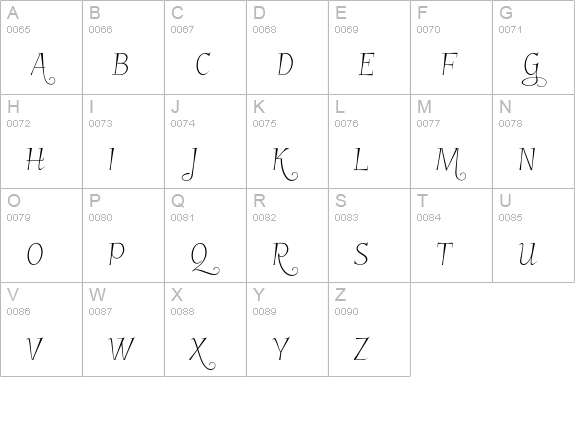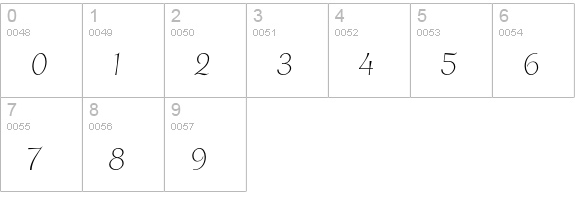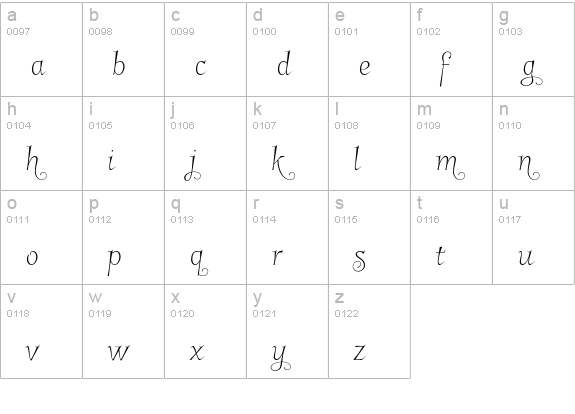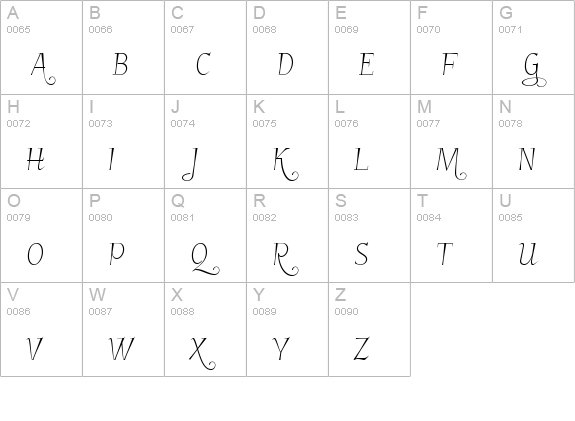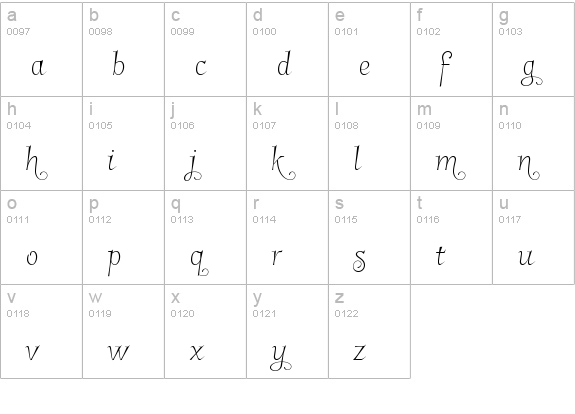
GarineldoNo01 Font Details
GarineldoNo01 is a stunning and elegant font that is sure to captivate your audience. With its sleek and modern design, this font is perfect for various creative projects, including logos, branding, invitations, and more. This versatile typeface embodies a sense of sophistication and class, making it a great choice for both professional and personal endeavors. What sets GarineldoNo01 apart is that it is not only visually appealing but also freely available to download at FontsMarket.com. This means that you can enhance your designs without any financial constraints. The accessibility of this font allows designers, artists, and enthusiasts to unleash their creativity without worrying about licensing fees. The characters of GarineldoNo01 are meticulously crafted, featuring clean lines and a balanced letterform. Each glyph exudes a sense of refinement, making it a perfect choice for projects that require a touch of elegance. Whether you are creating a wedding invitation or a high-end brand identity, this font is sure to elevate your design and leave a lasting impression. With its wide range of weights and styles, GarineldoNo01 offers endless possibilities for customization. Whether you prefer a bold and impactful look or a more delicate and subtle touch, this font has you covered. Its versatility ensures that it can adapt to any design concept or aesthetic, allowing you to create unique and visually stunning compositions. So, if you are looking for a high-quality, visually appealing font that is also free to use, look no further than GarineldoNo01. Download it now from FontsMarket.com and unlock the potential to create captivating designs that will surely stand out from the crowd.